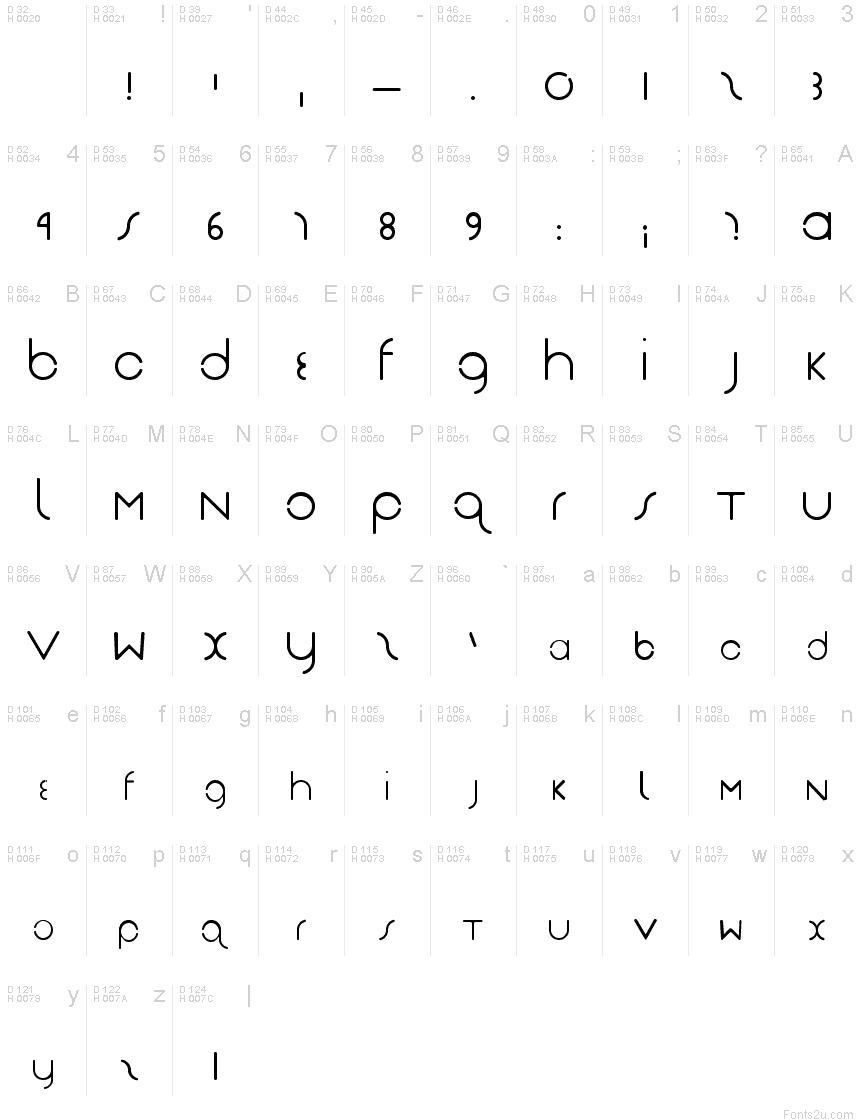
Smoke is a free monoline display font with smooth, open shapes and a distinctly futuristic cast. Most letters use clean rounded strokes, though sharp diagonal joins introduce a crisp geometric edge.
Its continuous-line construction can echo the contours of minimalist illustration and abstract icons in technology branding or digital graphics. The spare, unusual forms also suit music packaging and fashion posters, especially when the lettering is meant to function as part of a larger linear motif. This font is most convincing in a custom wordmark, where its sweeping curves and angular connections become recognizable brand features.